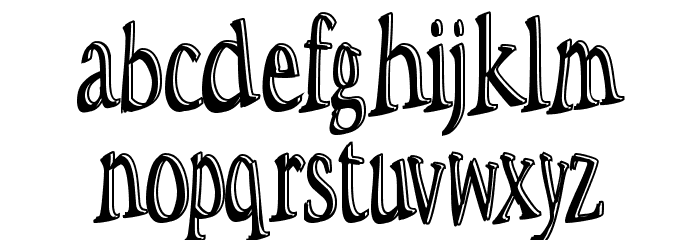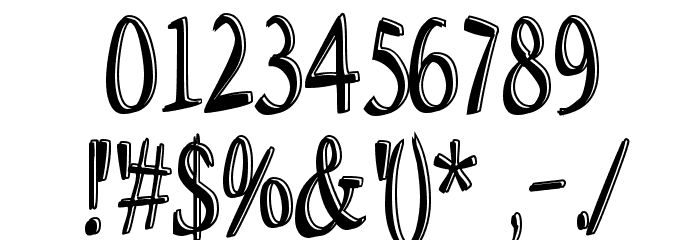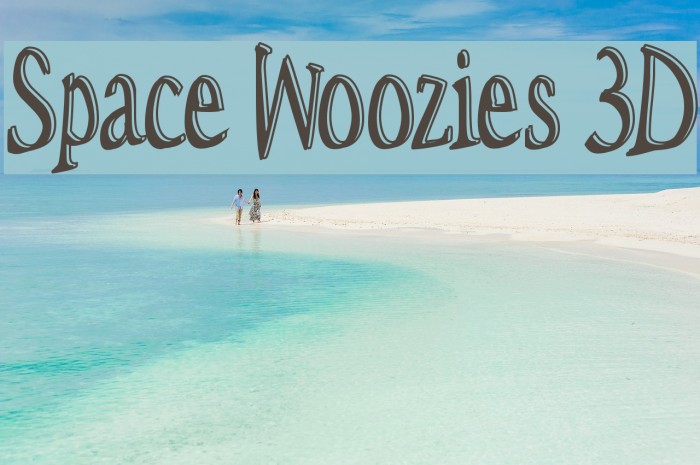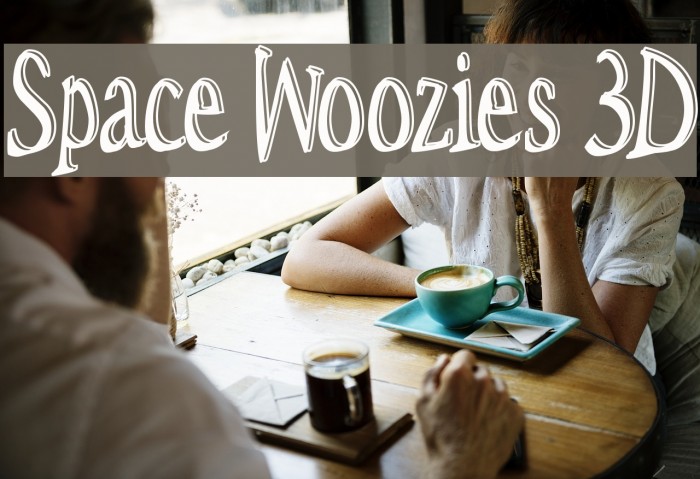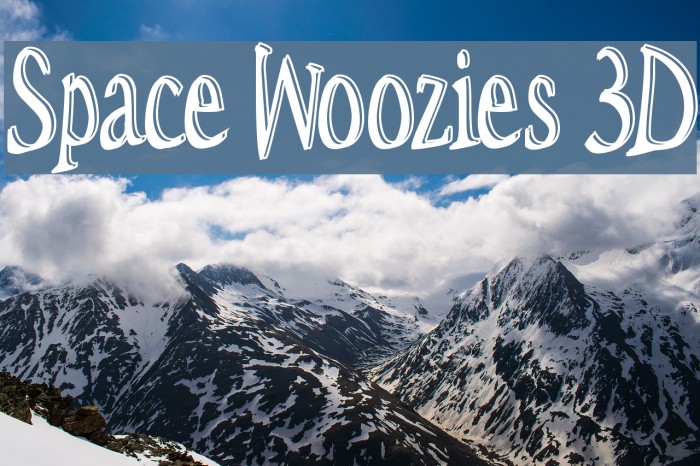
Space Woozies 3D Font
This font features a playful and dynamic 3D effect, with each character appearing to leap off the page. The letters are bold and slightly condensed, with a whimsical flair that adds a sense of movement and energy. The strokes are thick and consistent, providing a strong visual impact. The font maintains a uniform style across uppercase, lowercase, numbers, and special characters, ensuring versatility in design applications. Its unique style makes it suitable for eye-catching headlines and creative projects.
A bold, playful 3D font with a dynamic and whimsical style.
- Proposed Projects: Ideal for children's book covers, playful branding, posters, and creative digital content.
- Category: Decorative/Display
- Width: Condensed
- Overall Style: Playful, Dynamic, Whimsical